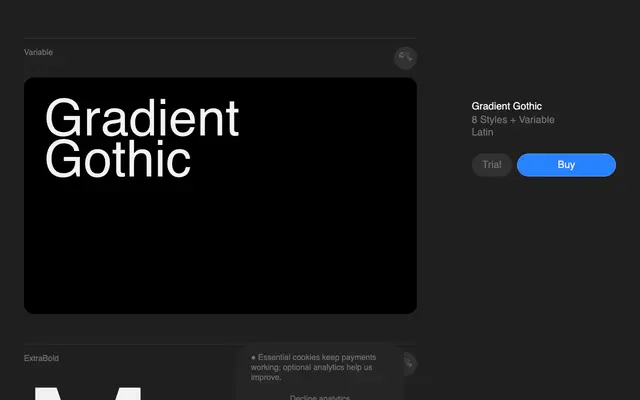
Gradient Gothic
A sans-serif by Matyáš Machat that bridges constructed gothic letterforms with the looseness of handwritten script, unified by a recurring diagonal stroke.
Eight static styles from Thin to ExtraBold are accompanied by a variable axis, giving designers fine control across the full weight range. Rather than imposing uniformity across letterforms, the design embraces diversity in individual characters, with a diagonal stroke acting as the sole binding element and a nod to 20th-century graphic traditions. Ten stylistic sets and a broad feature set including oldstyle figures, discretionary ligatures and contextual alternates add considerable flexibility for editorial and display use.
Described as a transitional typeface connecting constructed sans-serif features with playful handwriting; the gothic naming and diagonal stroke motif place it in the gothic sans tradition with expressive, humanist inflections.